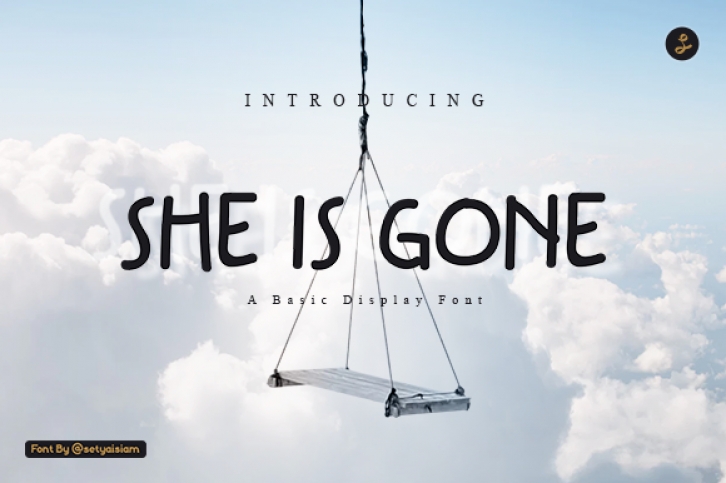
She is Gone is a timeless display font. It features a friendly feel that will look outstanding in any context, whether it’s being used on busy backgrounds or as a standalone headline!